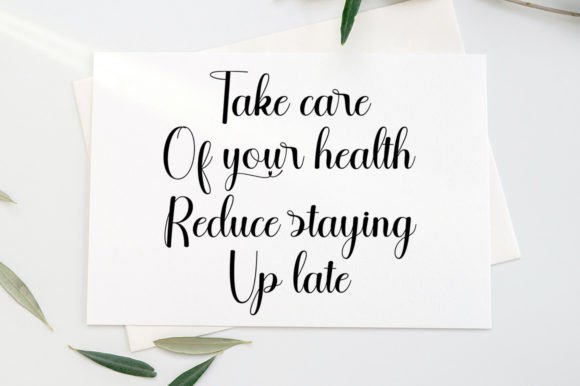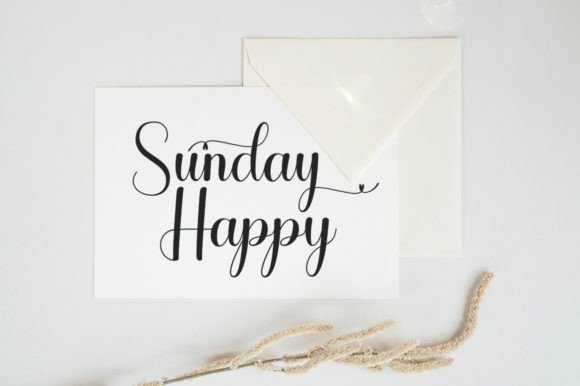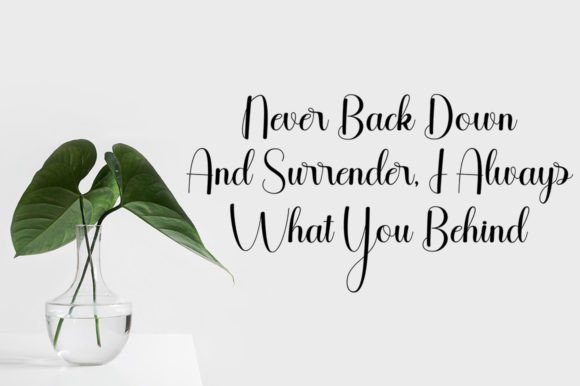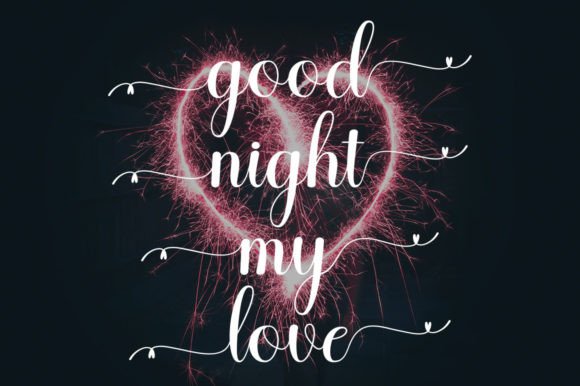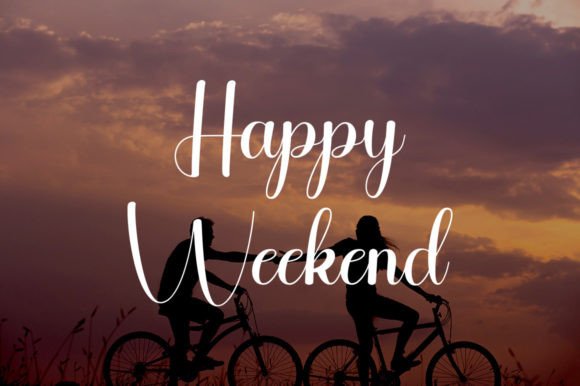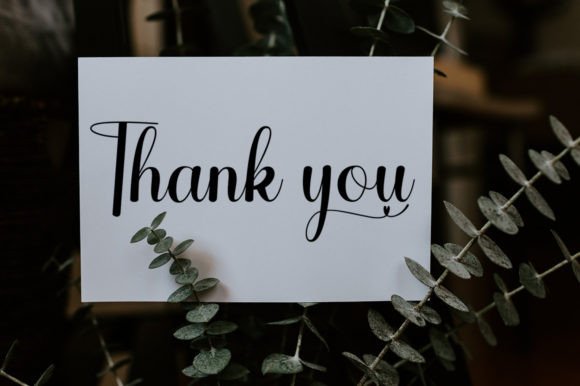
The Magic of Alita Font: Elevate Your Designs with Elegance
I still remember the time I was working on a wedding invitation project, and my client asked for a font that would make their special day feel like a fairytale. I scoured the internet, tried countless fonts, but nothing seemed quite right. That was until I stumbled upon Alita Font. This dazzling and detailed calligraphy font instantly captured my heart, and I knew I had found the perfect fit. In this article, I’ll share my love for Alita Font, its features, and how to make the most of it in your designs.
An Honest Review of Alita Font
What I Love About Alita Font
- ✨ Elegant and romantic calligraphy style, perfect for love letters, wedding invitations, and more
- ✅ Highly detailed and intricate design, making it stand out in any project
- 💫 Support for OpenType features, allowing for creative freedom and flexibility
- 🎨 Versatile and works well with various design styles and color schemes
While Alita Font is an amazing addition to any design project, there are a few things to keep in mind:
- ⚠️ Some of the more intricate details may not display well at smaller font sizes
- 🤔 Limited availability of stylistic alternates, which may limit creative options
- Experiment with OpenType features, such as ligatures and stylistic alternates, to add personality to your text
The Story Behind Alita Font
Alita Font was inspired by the beauty of handwritten calligraphy. Its creator, a talented typographer, aimed to craft a font that would evoke the romance and elegance of handwritten letters. With its intricate details and flowing lines, Alita Font is a testament to the art of calligraphy.
Q: What is Alita Font best used for?
A: Alita Font is perfect for romantic and elegant designs, such as love letters, wedding invitations, and other special occasions.
Q: Is Alita Font available in different styles or weights?
A: Currently, Alita Font is available in a single style, but its OpenType features provide flexibility and creative options.